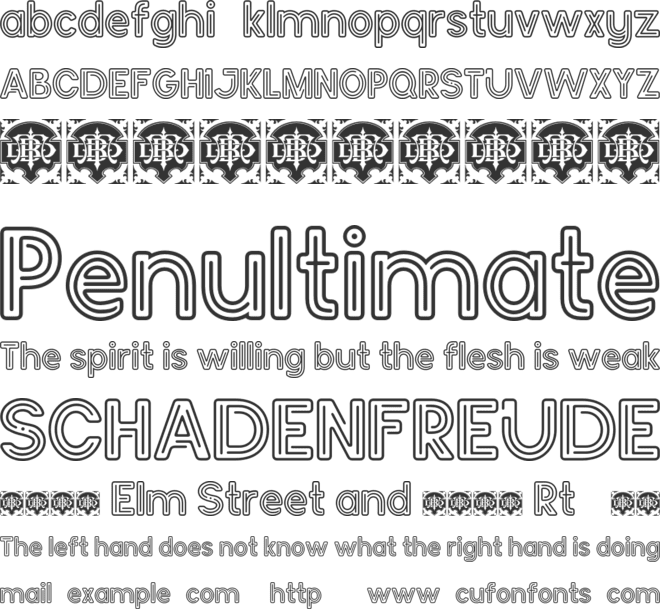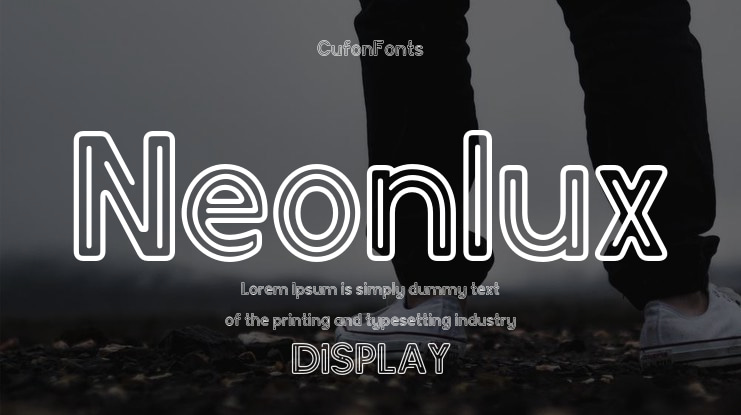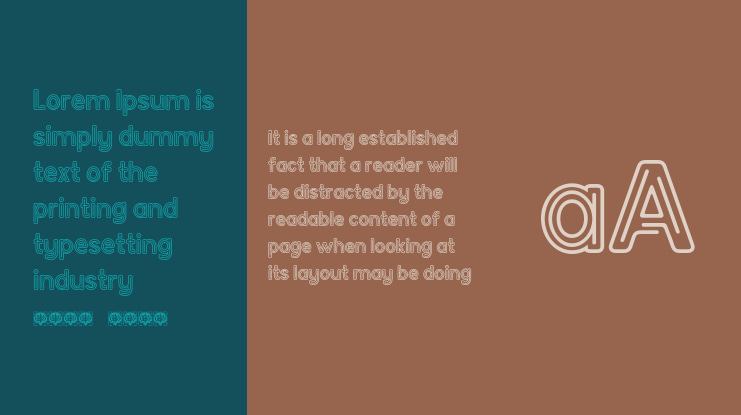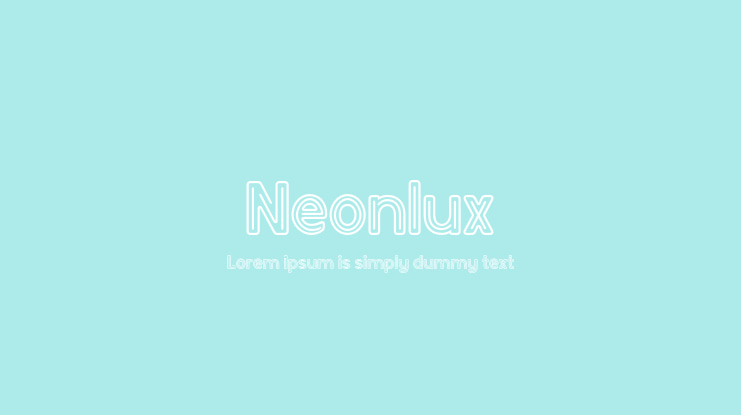
Neonlux Font
Please note that the Neonlux - Demo Version is for personal use only. Embrace your creativity with the unique neonlux font. This font has the ability to add a touch of retro-futurism or a burst of vibrant color to your designs, helping them stand out. Whether you are working on social media graphics, posters, or any other creative project, a neon font can bring your message to life! For detailed license information, please visit my website: [BurnTillDead License Details](https://www.burntilldead.com/license/).